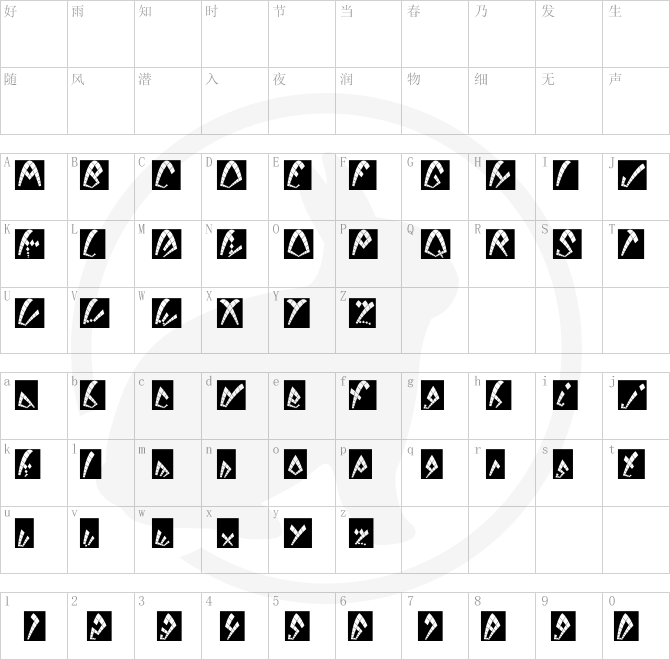
- Font Name:Dack BrokenNegative
DackBrokenNegative.otf is a very beautiful artistic font, DackBrokenNegative.otf is widely used in the design and printing of various books and pictures,DackBrokenNegative.otf has a strong visual impact,DackBrokenNegative.otf is a commonly used font in newspapers, magazines and books, and is used in posters, e-commerce Poster design, store design, logo design, font design and other fields.DackBrokenNegative.